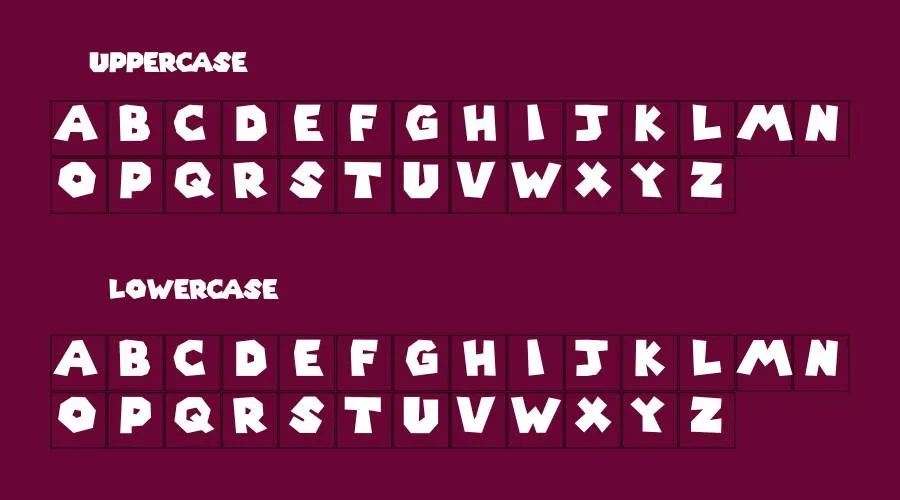
About Mario Font
Mario Font is a unique style that is created by fsuarez913. This font is realistic and simple, but strong in shape and design. This is a modern edition style that is created in the name of the famous movie writer and director.
In this regular design characters, the pattern highlights unique glyphs. The text style may change depending on the letters chosen. Besides, you can involve it as a generator tool on your PC or Mac for making new plans.
With this typeface, you will be able to create beautiful typography and decorative designs. It is also possible to pair the typeface with its matching typefaces like alien font.